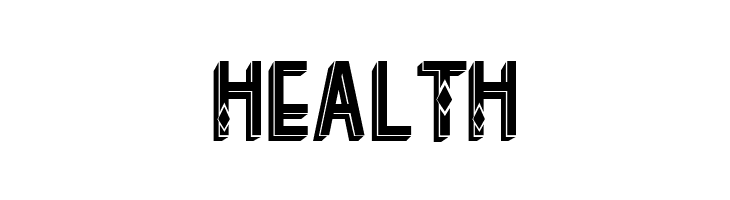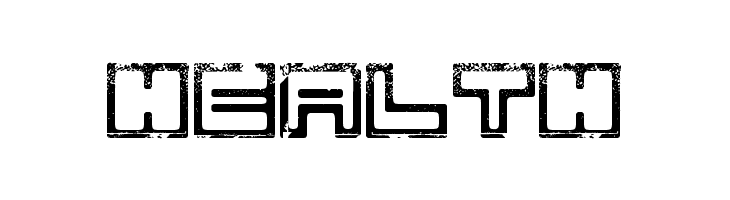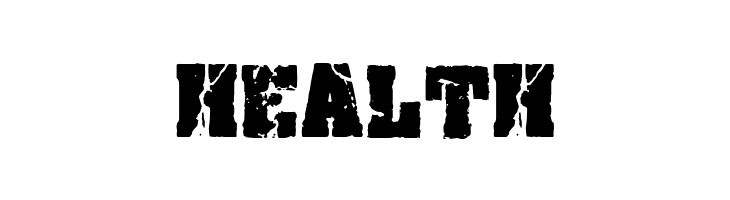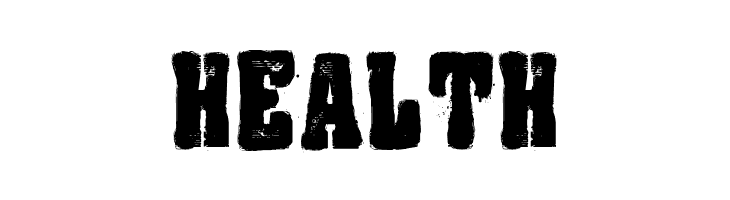
A bold, distressed font with a gritty, urban aesthetic.
A bold, distressed font with a grunge texture and strong vertical emphasis.
A bold, decorative font with a distressed texture and geometric elements.
A distressed serif font with a vintage, rugged appearance.
A bold, distressed font with a grungy, textured appearance.
A bold, industrial font with a distressed, eroded effect for a rugged look.
A bold, industrial font with a textured, mechanical appearance.
A bold, distressed font with a rugged, cracked appearance.
A bold, distressed font with a vintage, industrial feel.
A bold, distressed font ideal for spooky, horror-themed designs.